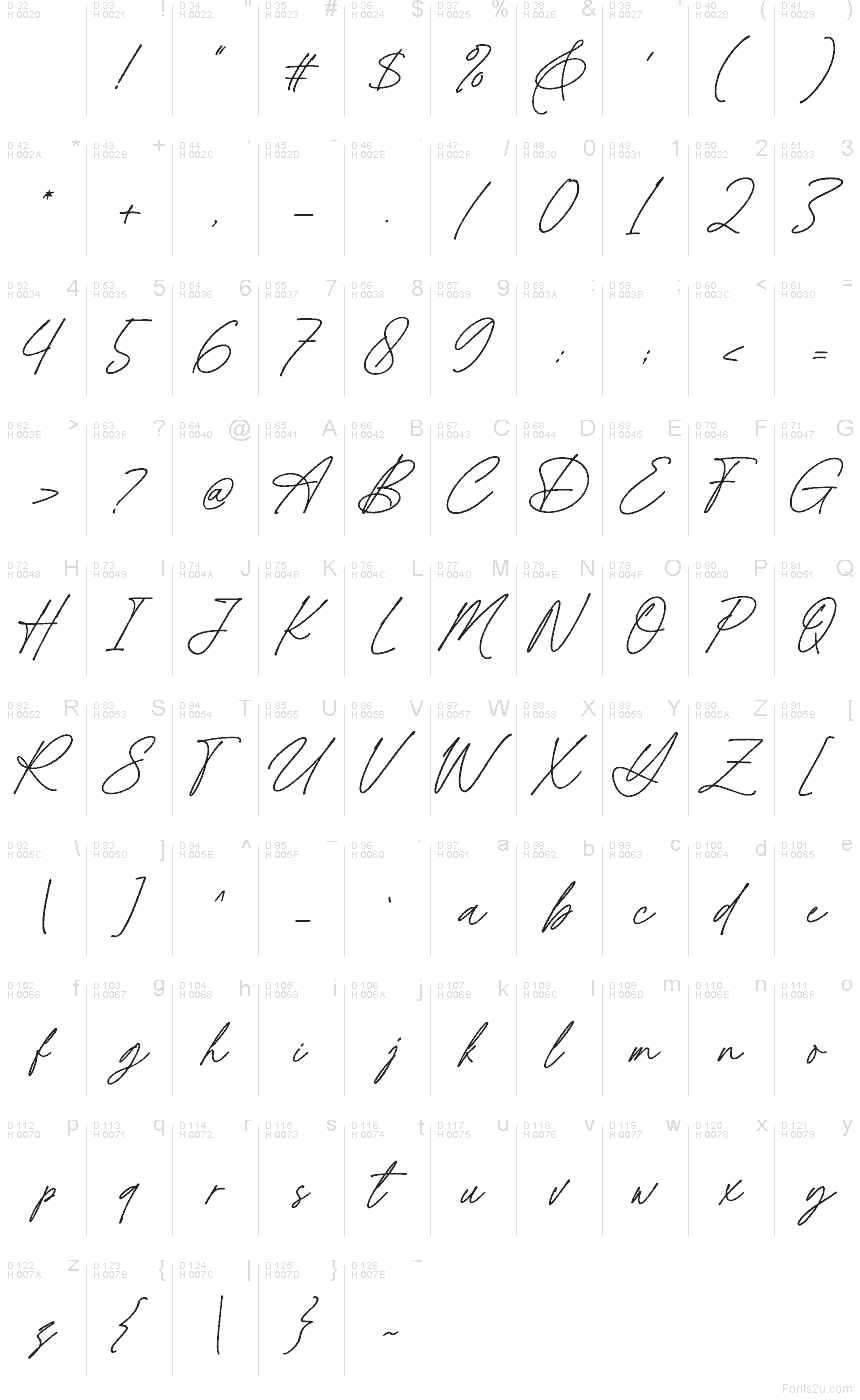
Angellica Signature
Angellica Signature font by Rangga Singgih Subekti of Subectype is a free handwritten font with the breezy confidence of a real ink signature. Its hairline strokes stay crisp and airy while the long, sweeping curves add a luxe, personal flourish without turning messy. The rhythm feels fast and natural, like it was signed in one smooth motion.
Using Angellica Signature shines on wedding invitations, beauty branding, boutique logos, jewelry tags, Instagram quote graphics, packaging labels, and classy watermark overlays. Set it a touch larger to let those elegant swashes breathe, and keep tracking slightly open if you’re placing it over photography. Pair this free font with a clean sans like Montserrat or a quiet serif for the supporting details.